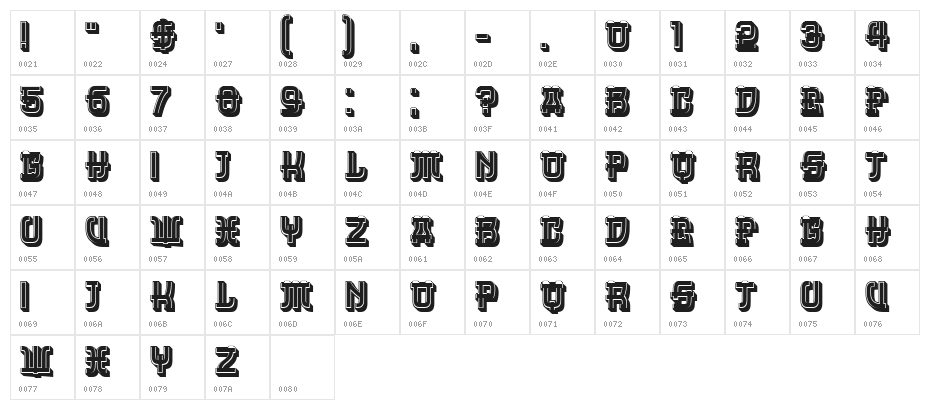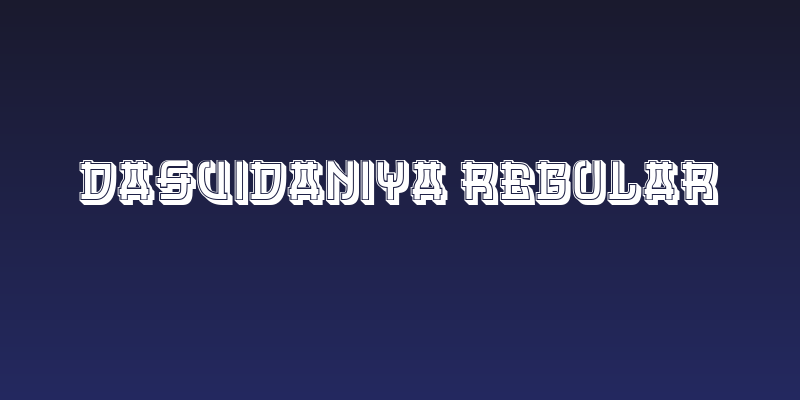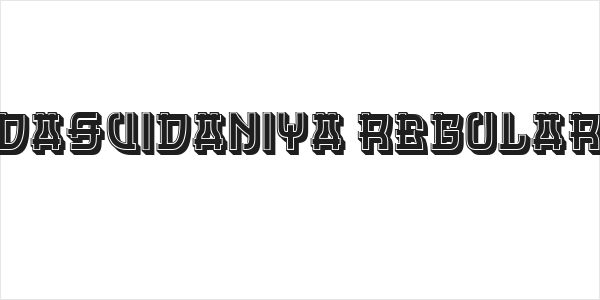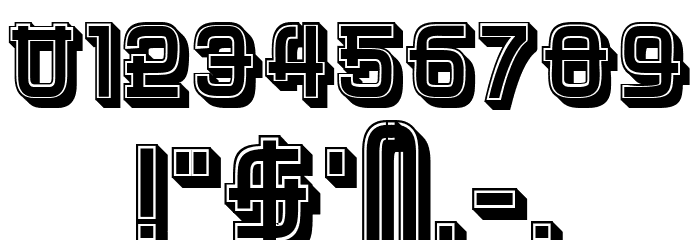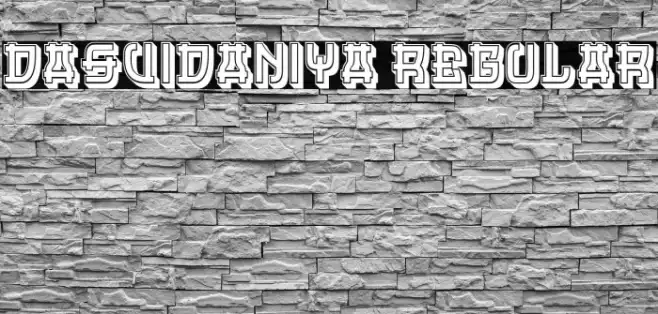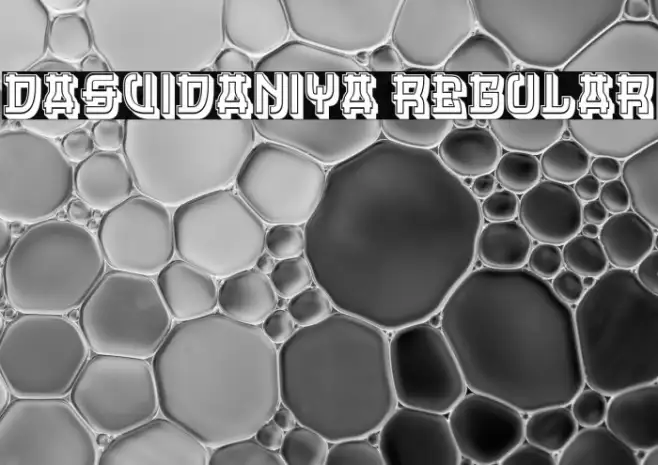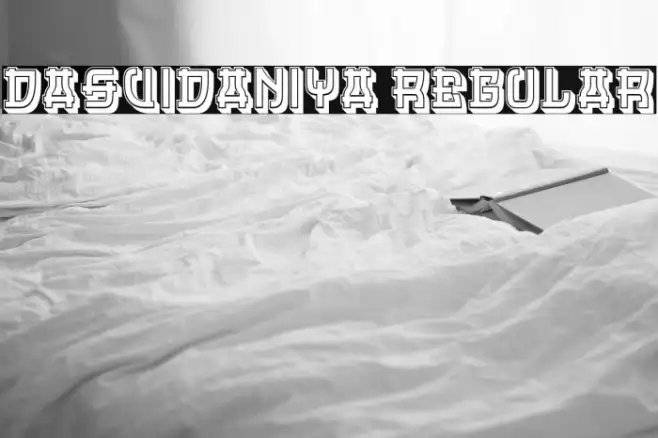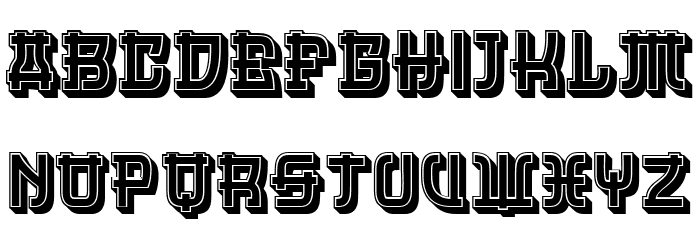
Dasvidaniya Regular Font
Dasvidaniya Regular Description
This font features a bold, decorative style with a strong geometric influence. The characters are outlined with a thick border, giving them a three-dimensional appearance. The design incorporates sharp angles and a blocky structure, reminiscent of industrial or architectural elements. The uppercase and lowercase letters maintain a consistent style, with uniform height and width, creating a cohesive look. The numerals and special characters follow the same design principles, ensuring visual harmony across all elements. This font's unique aesthetic makes it suitable for eye-catching designs.